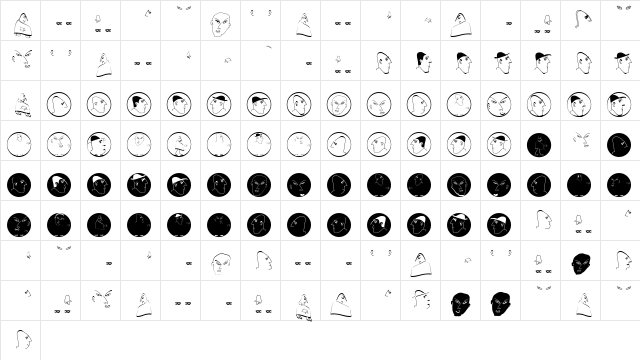
MansPartsPlaying Regular
Design Context for MansPartsPlaying Typeface
MansPartsPlaying is a composed and adaptable typeface that performs quietly and consistently across a wide range of design contexts.